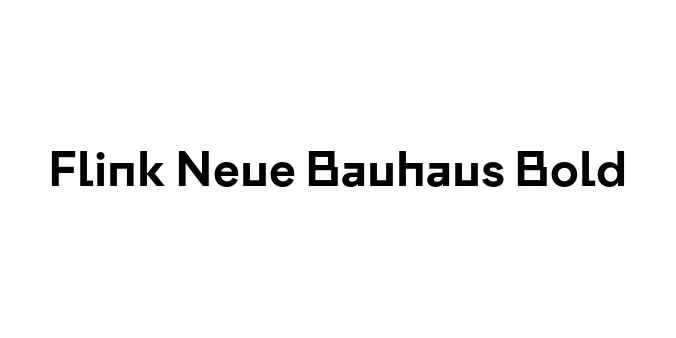
Flink Neue Bauhaus Bold
Designed by Diego Aravena and Salvador Rodríguez (W Foundry)
| Category | Sans Serif / Geometric |
| Designer | Diego Aravena and Salvador Rodríguez (W Foundry) |
Flink Neue Bauhaus Bold is a striking geometric sans-serif typeface that draws deep inspiration from the iconic Bauhaus movement of the early 20th century. Developed by the creative minds at W Foundry, this font family bridges the gap between classic modernism and contemporary digital aesthetics. Its design is characterized by pure geometric forms, such as perfect circles and precise straight lines, which provide a clean, mechanical, and highly legible structure suitable for high-impact visual communication across various media platforms.
The Bold weight of Flink Neue Bauhaus is particularly effective for branding and editorial design where a strong, authoritative presence is required. With its wide proportions and refined kerning, it excels in large-scale applications like signage, posters, and headlines. This typeface maintains the functionalist philosophy of "form follows function," making it a versatile and timeless choice for designers looking to convey a sense of efficiency, clarity, and sophisticated minimalism in their projects.
Flink Neue Bauhaus Bold Best Uses
Perfect for creating strong, recognizable logos and corporate identities.
High impact for large-scale print media and advertising displays.
Ideal for bold, modern website hero sections and digital titles.